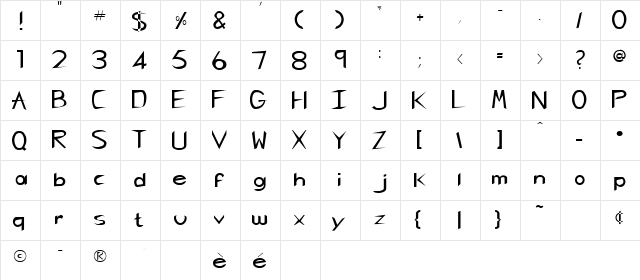
REBECCA Regular
Design Context for REBECCA Typeface
REBECCA is a composed and adaptable typeface that performs quietly and consistently across a wide range of design contexts.